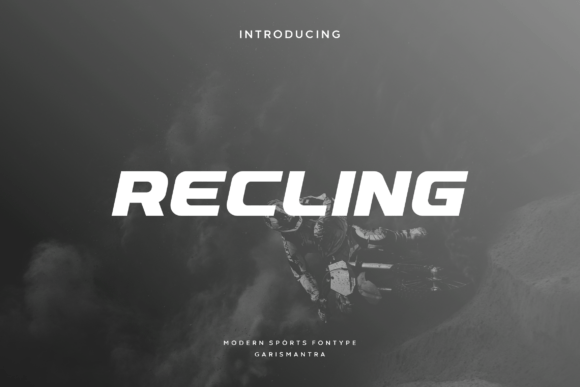
Introducing Recling Font, the ultimate choice for sports enthusiasts and creative minds alike! This amazing sans-serif font, crafted by the talented garismantra, is poised to elevate your designs and captivate your audience like never before. With its stylish and cool aesthetic, Recling Font is the perfect companion to add a touch of modernity and sophistication to any project.
Are you in search of the ideal font for sports numbers? Look no further! Recling Font is specifically designed to meet your needs in the world of athletics. Whether you're creating team jerseys, sports merchandise, or even designing a sports-themed website, this font will make your numbers stand out and leave a lasting impression. Its sleek and professional look will exude a sense of confidence and competence, setting you apart from the competition.
But Recling Font goes beyond just being a font for sports numbers. Its versatility knows no bounds! This font is a powerful tool that can enhance various design projects across different industries. From logo designs to branding materials, from posters to social media graphics, Recling Font adds a touch of elegance and uniqueness to every element it graces.
What sets Recling Font apart from the rest is its impeccable attention to detail. Every curve, every line, and every character has been meticulously crafted to ensure maximum visual impact. Its legibility remains unparalleled, making it a breeze for your audience to read and absorb your message effortlessly. With Recling Font, your words become a work of art, effortlessly drawing attention and leaving a lasting impression.
Embrace the power of emotion and creativity with Recling Font. Let your designs evoke excitement, passion, and inspiration. This font breathes life into your words, infusing them with a sense of energy and dynamism. Whether you're designing for a sports event, a fitness brand, or any other project that calls for a modern and impactful font, Recling Font is your go-to choice.
In a world where first impressions matter, Recling Font ensures that your designs make a striking impact from the get-go. Its captivating appeal grabs your audience's attention and keeps them engaged, leaving them wanting more. Stand out from the crowd and make a statement with Recling Font.